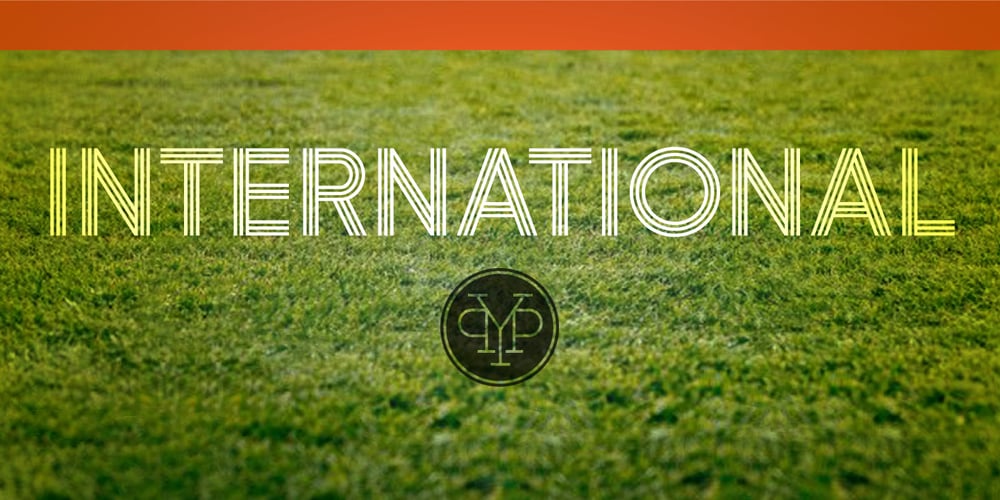
International Font Family was designed by Lee Schulz and published by Yes Please. International contains 1 styles and family package options. International is an homage to mid-century modernist trilines. Offering contemporary, well-balanced proportions and a lack of heavily dated styling affectations, International brings a uniquely modern sensibility to the triline style. International features OpenType standard ligatures, discretionary ligatures and stylistic alternates as well as a standard set of accents and symbols to provide a versatile end-user experience. International has played hard for Nike Women’s Training, Nike Running, Nike Sportswear, Target, Showtime and more.